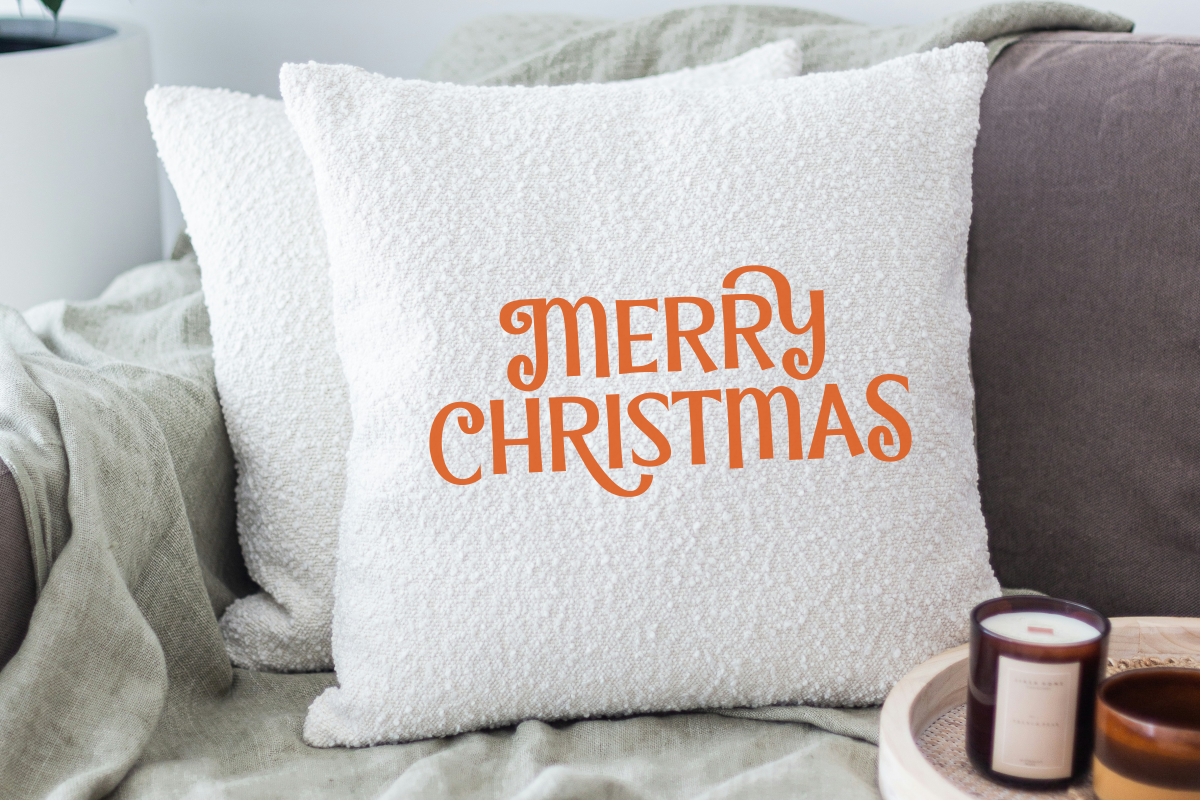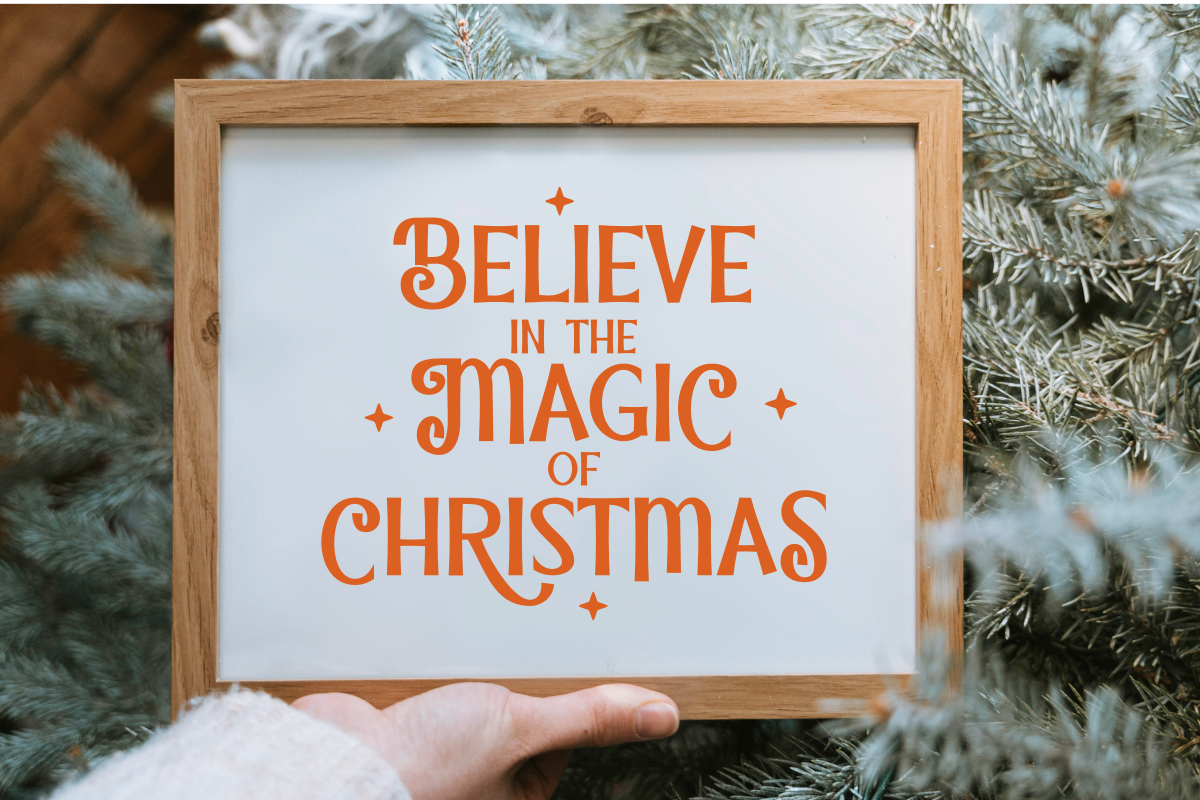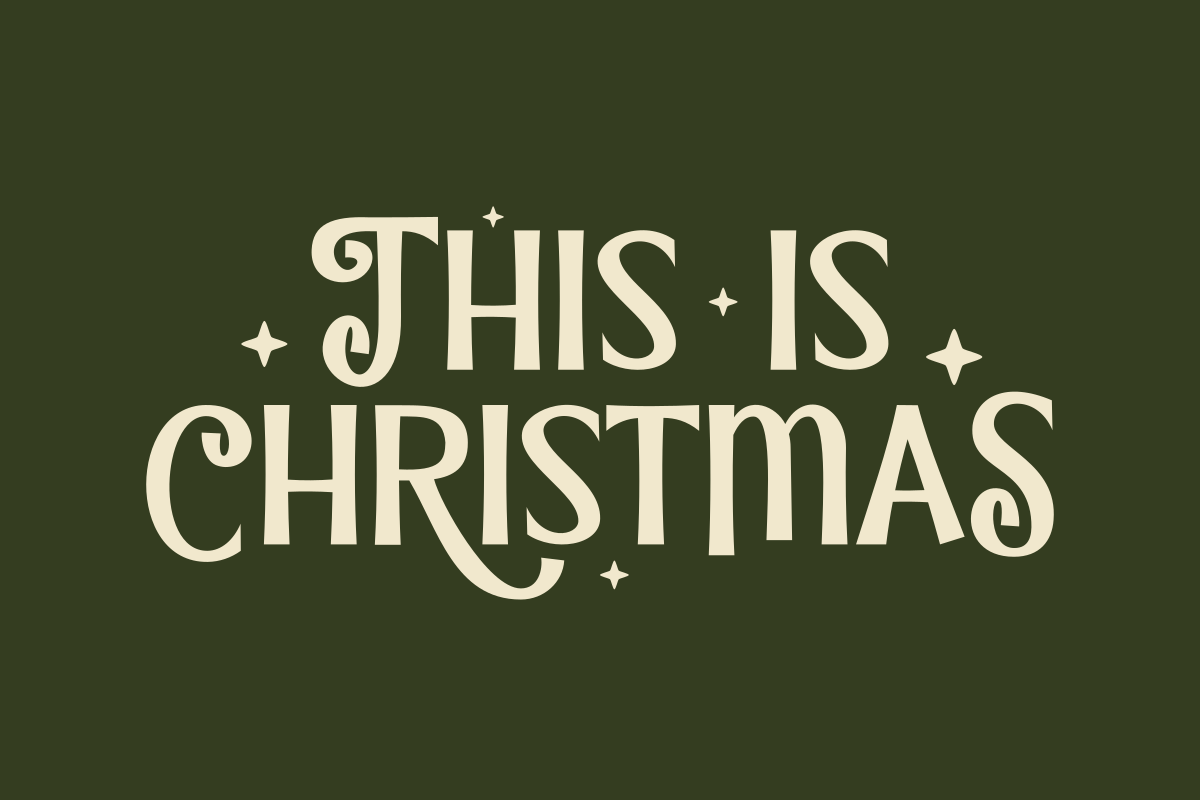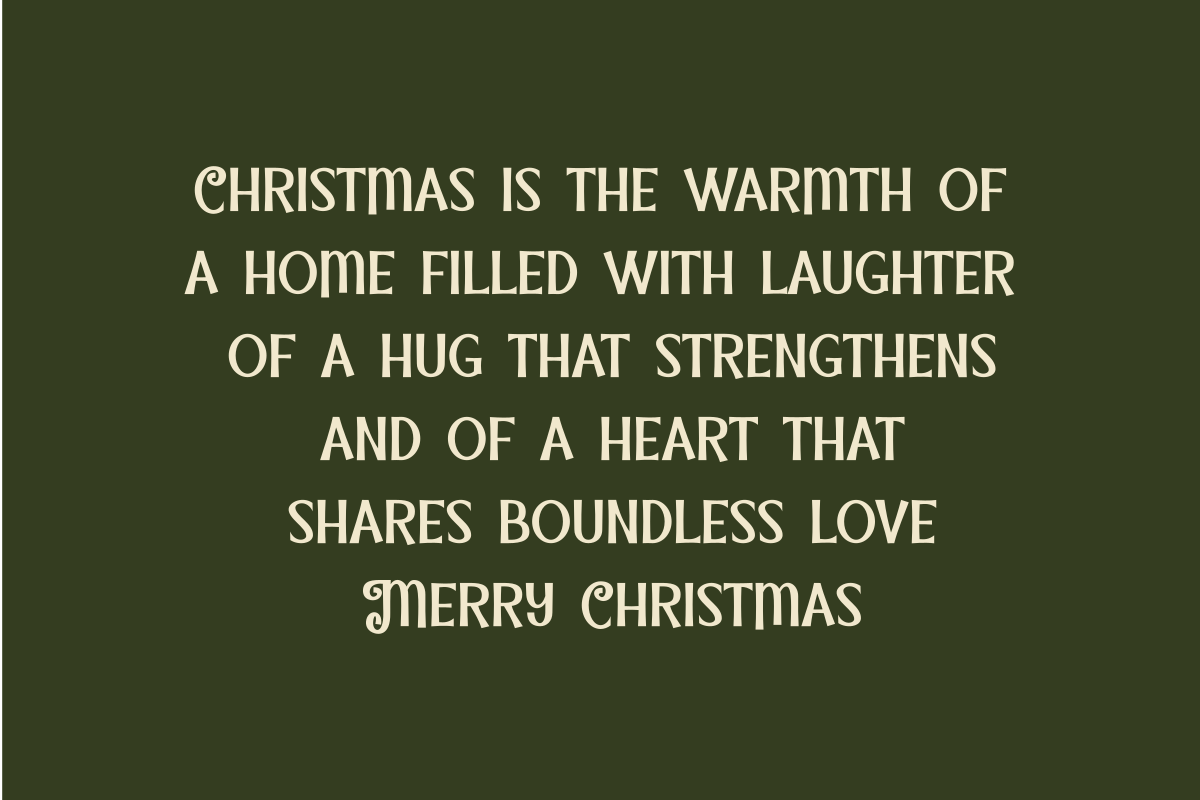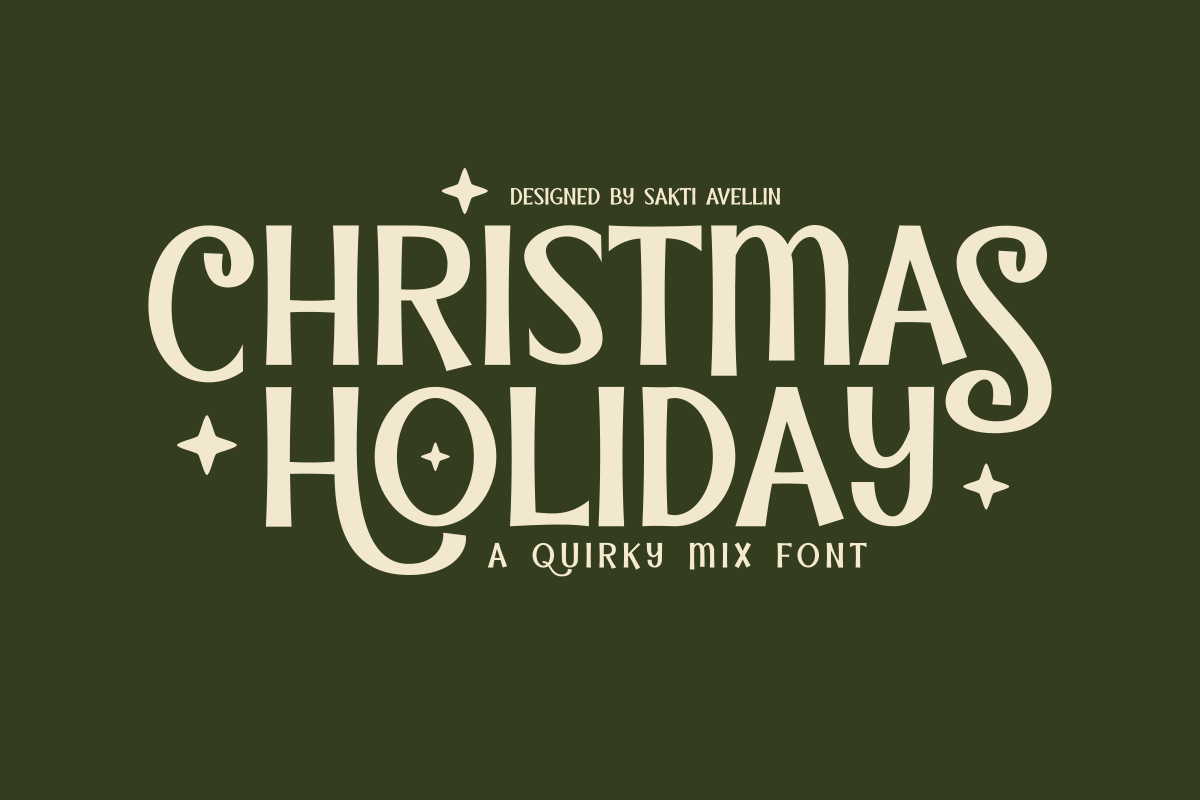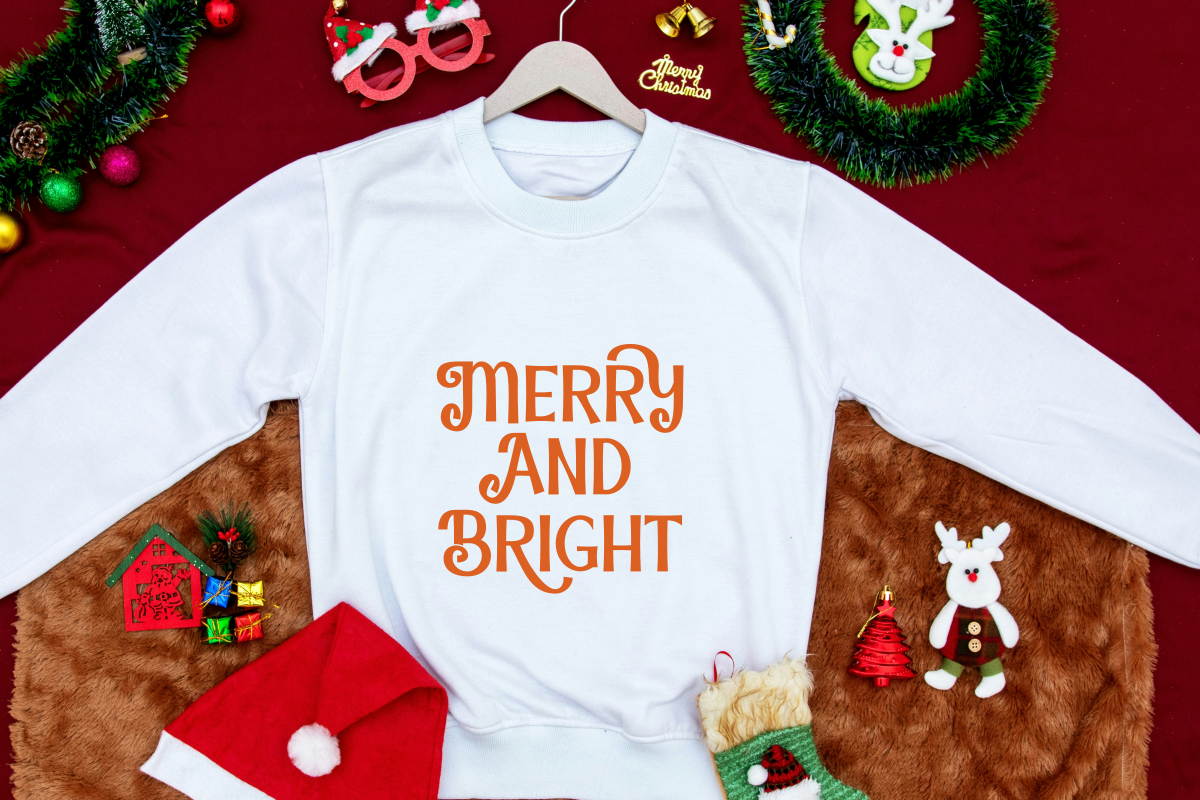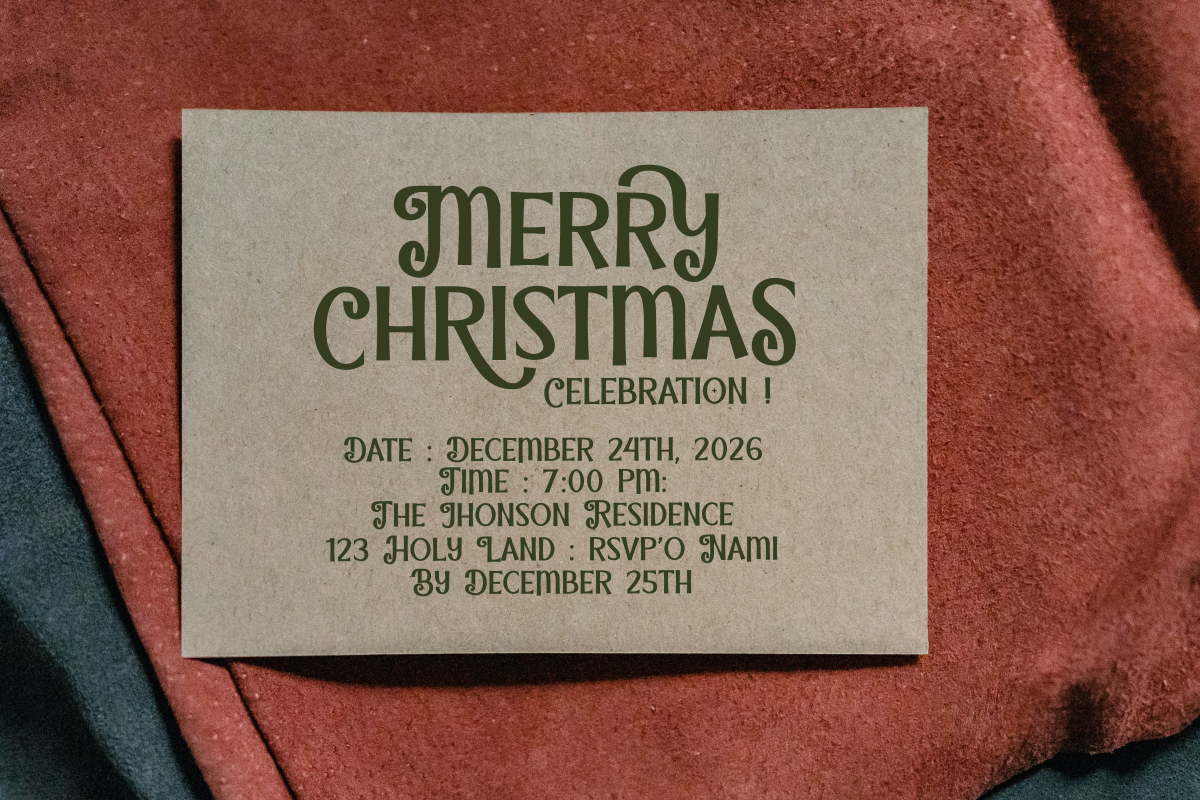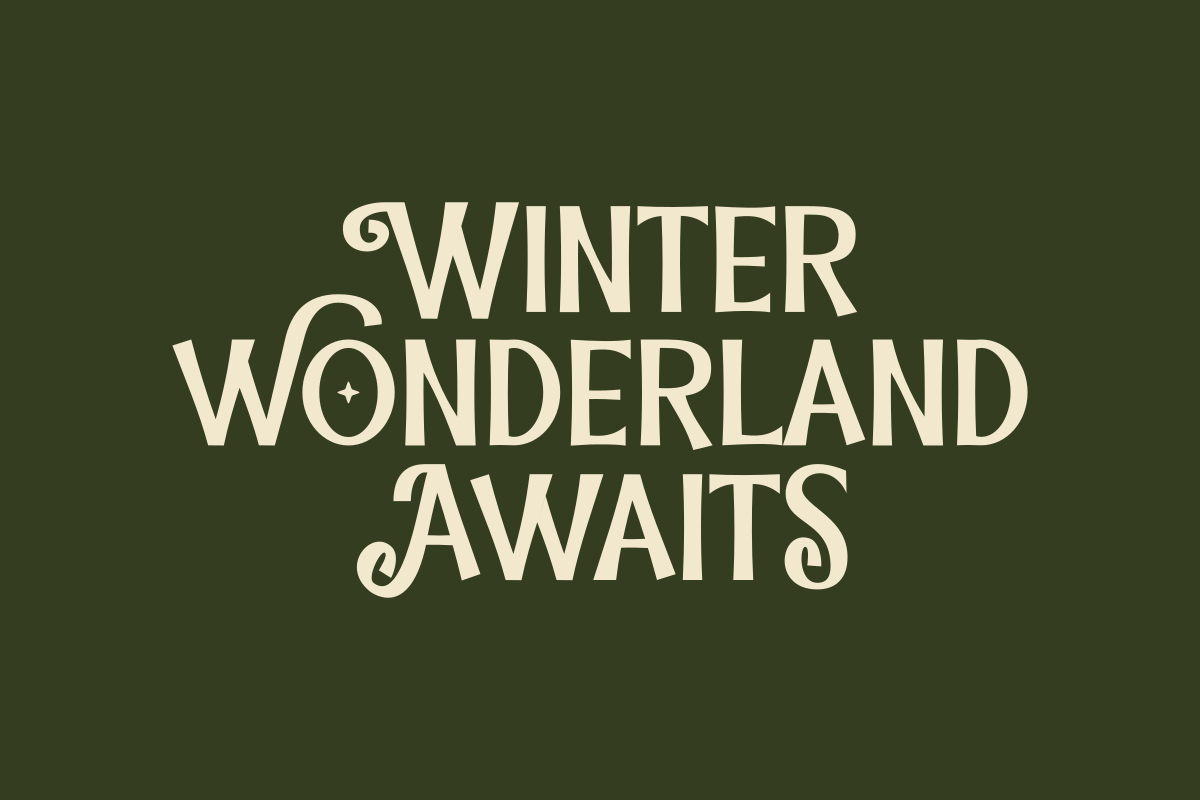
Christmas Holiday - Quirky Mix Font
Christmas Holiday is an enchanting, playful, and wonderfully quirky mix font that captures the joyous and unique spirit of the festive season. This versatile decorative display font features a blend of elegant curves, bouncing baseline, and charming star elements, making it essential for Christmas invitations, cheerful seasonal branding, holiday t-shirt designs, festive posters, and fun social media graphics. Its distinctive, hand-drawn style ensures it is a powerful display typeface for headlines and product packaging, appealing to a trendy audience seeking a cute, modern, and memorable holiday look. Spread some festive cheer with this delightful quirky Christmas font!